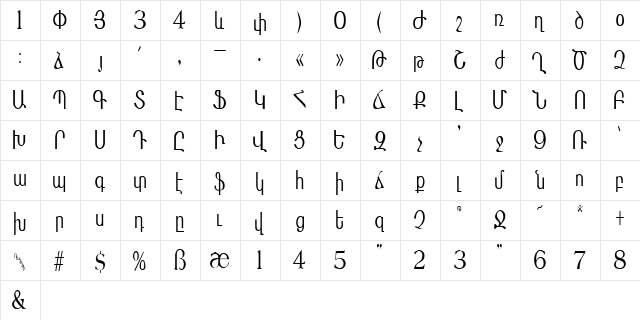
MasisNihar Normal
Design Context for MasisNihar Typeface
MasisNihar takes a measured approach to typography — its balanced proportions and neutral character make it a reliable workhorse for both digital and print work.